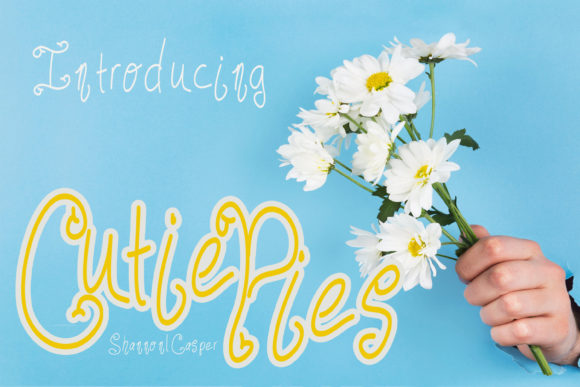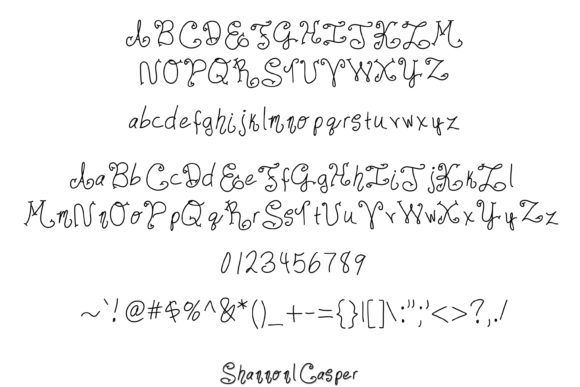
Cutie Pies Font
About Cutie Pies Font
Cutie Pies is an easy and fun script font for just about any craft or design.
Give your next project a nice touch with this playful new font.